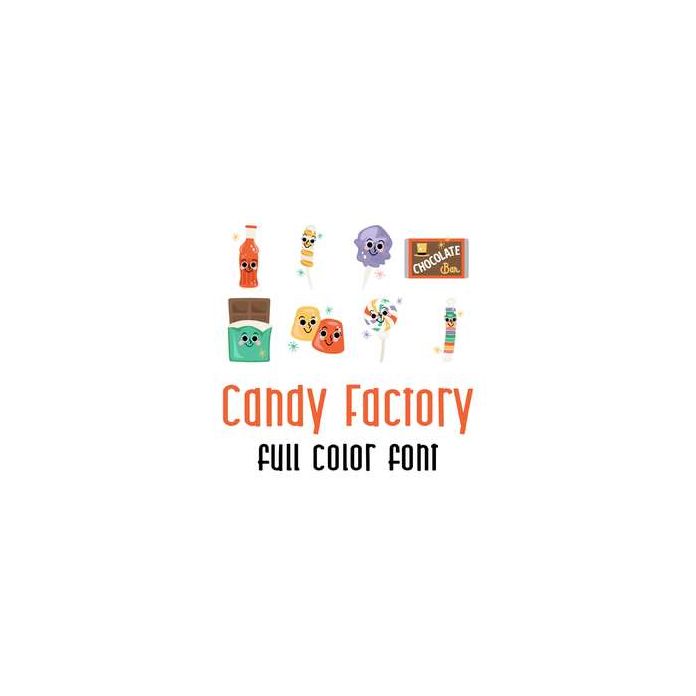
This adorable full color doodlebat font features fun retro styled candy and candy factory pieces. Perfect for cards, crafts, gifts, decor, scrap book pages, planner stickers and more!